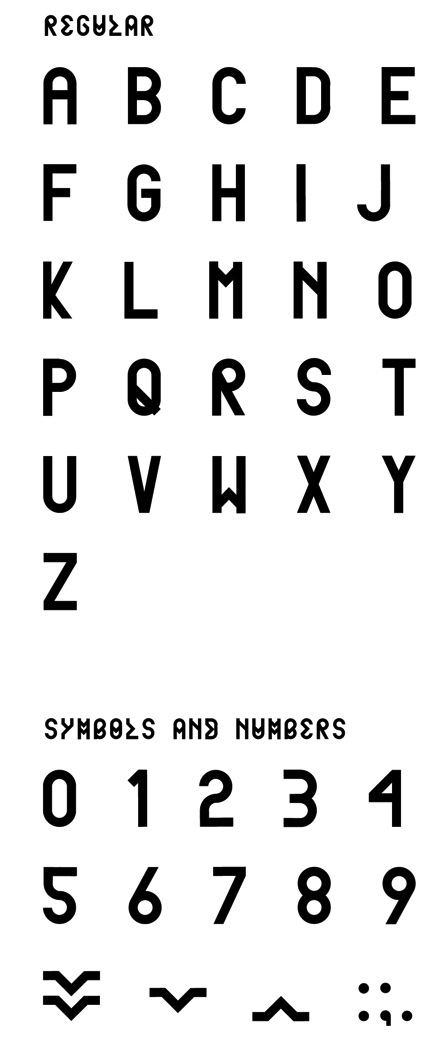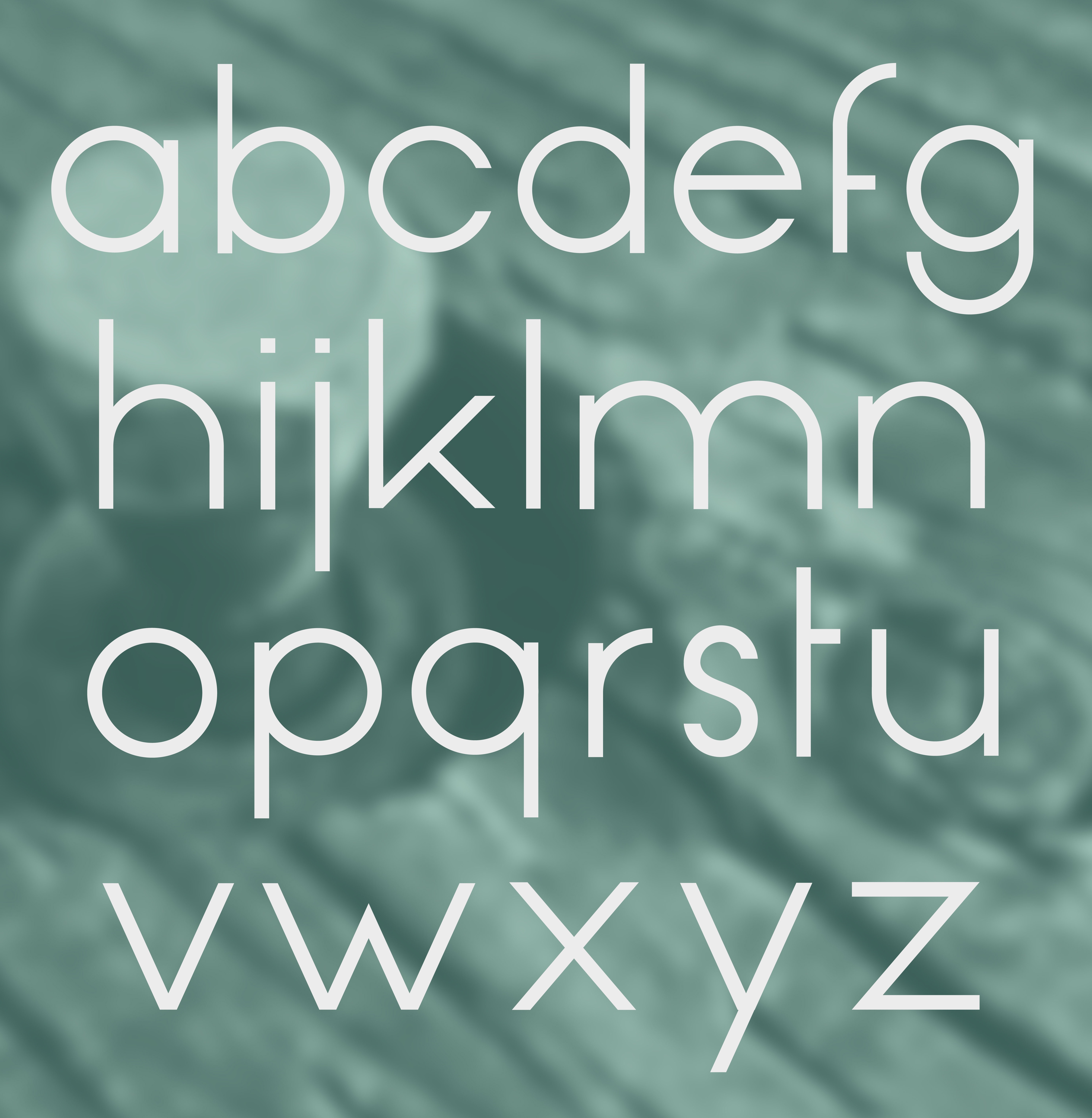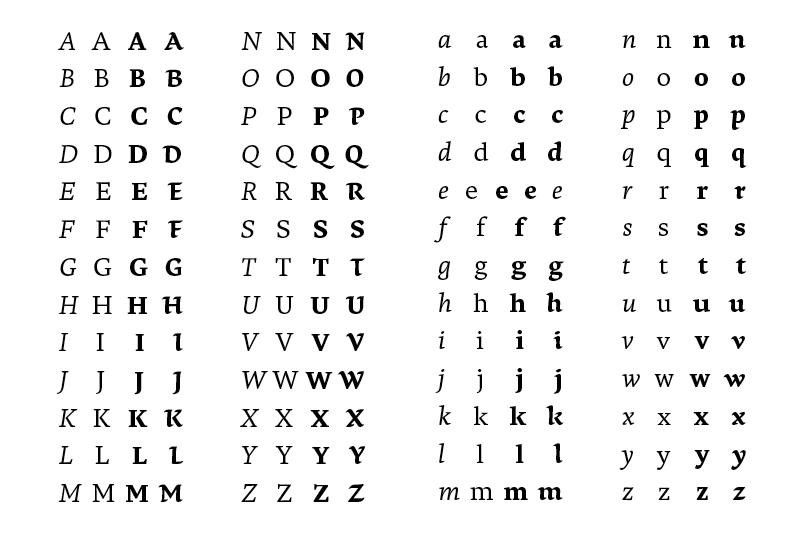
Dutch type design | ||
" <...> is the title of a new graphic design magazine (now based in Den Haag, The Netherlands) intended to fill a gap in current arts publishing. It is not interested in re-promoting established material or creating another 'portfolio' magazine. Instead, it offers inventive critical journalism on a variety of topics related both directly and indirectly to graphic design culture. " Editors: Jurgen Albrecht, Stuart Bailey, Peter Bilak. [Google] [More] ⦿ | |||||||||||||||||||||||||||||||||||||||||||||||||||||||||||||||||||
21 Inch
| 21 Inch is Michael Lugmayr's company in Rotterdam. His fonts were promised in 2003---still waiting. [Google] [More] ⦿ | ||||||||||||||||||||||||||||||||||||||||||||||||||||||||||||||||||
Type design mag started in September 2003 by Underware in The Netherlands. [Google] [More] ⦿ | |||||||||||||||||||||||||||||||||||||||||||||||||||||||||||||||||||
Dutch type historian who collected many art nouveau type specimen, including some rare alphabets drawn by the Rotterdamse Schilderschool. Nadeem Muzaffar's Bibelot (2010, a custom typeface) is based on one of these alphabets. [Google] [More] ⦿ | |||||||||||||||||||||||||||||||||||||||||||||||||||||||||||||||||||
Aad van Dommelen
Student at ArtEZ Institute of the Arts in Arnhem, The Netherlands, b. 1991. He created the optical illusion typeface Lines (2009). [Google] [More] ⦿ | |||||||||||||||||||||||||||||||||||||||||||||||||||||||||||||||||||
Graduate from the Emily Carr Institute (Vancouver) and the KABK in Den Haag in the Type and Media program (2009). Originally from Lethbridge, Alberta, Abi designed a modular type generator. At KABK, he created Arietta, a small family consisting of a simply constructed transitional roman and a bold roman, as well as multiple italic companions. He works as a graphic designer at Commercial Type in New York City. [Google] [More] ⦿ | |||||||||||||||||||||||||||||||||||||||||||||||||||||||||||||||||||
Dutch foundry in Bergen op Zoom. Psychoscout is an initial caps font, originally developed for the Psychoscout record by Flat Earth Society (2006). It was made commercial in 2011. [Google] [MyFonts] [More] ⦿ | |||||||||||||||||||||||||||||||||||||||||||||||||||||||||||||||||||
Acute Studio
Creator of the hairline face Opium (2010) characterized by teardrop terminals. Creator of Paige (2011), developed at the tipoRenesansa 3rd international type design workshop in Ljubljana, Slovenia. This is an attractive and bouncy papercut display face. Marge (2011) is edgy and highly legible even at very small sizes---it was developed at the tipoRenesansa 2nd international type design workshop. Paige Italic (2012) was done at tipoRenesansa 4 and TypeClinic 5 (2012). Her KABK graduation typeface was Editura (2013), a a type family for serious publications, magazines, as well as non-fiction books. At The 8th International Typeclinic in 2014, she continued work on an untitled text typeface. At Die Gestalten, she published Paiper, an extraordinarily balanced and readable 6-style text family with angular flared glyphs that are genetically related to folded paper strips. In 2014, Diana collaborated on the design of HF Stencil with Bold Monday and Studio Thonik. Made for Holland Festival, HF Stencil is based on Glaser Stencil. In 2016, Diana published Equitan Sans and Equitan Slab at Indian Type Foundry, marrying industrial era rustiness with modern functionality. In 2017, she designed Tiny Sans and Albert Samuels Clock Type. Codesigner in 2017 with Samo Acko and Sabina Chipara of the typefaces Passenger Display (2017) and Passenger Serif (released in 2019: a Clarendon). Passenger Display is a high-contrast didone-style font family. It is intended for use in headlines, signs, or posters. Passenger Display is a high-contrast didone-style font family. It is intended for use in headlines, signs, or posters. In 2019, Diana Ovezea and Samo Acko added Passenger Sans, which is characterized by horizontal and vertical terminal strokes and small apertures, and delivers a relaxing read in long texts. With Sabina Chipara, she co-designed the 8-weight simplified sans family Bega at Indian Type Foundry. Diana Ovezea also published the sharp-edged 14-style Matteo in 2017. At Future Fonts, she published Bizzarrini (together with Sabina Chipara) and Silverspoon, ca. 2018. She writes about the wonderful Bizzarrini: Though the idea originates from a Stefan Schlesinger ad sketch for a Paris couture house, we straightened up this typeface and made it seem engineered and sharp. It gets its name from the Bizzarrini Manta, a wedge-shaped concept car designed in 1968 by Giorgetto Giugiaro. Bizzarrini has extremely long wedge serifs. Following Schlesinger's sketch, it features very tall capitals with an out-of proportion middle-line (very big heads on S, B and R). Silverspoon is a contemporary take on Copperplate Gothic. In 2019, she released the connected monoline sans script Akin (done with Sabina Chipara) and the geometric sans family Matteo at Indian Type Foundry. Typefaces from 2020: Silverknife (a tall and skinny version of Silverspoon), Capra (a headline typeface with a bouncy baseline. This project started as a one-day challenge to recreate a piece of lettering on the Glass Menagerie poster designed by David Klein in 1958). At Fontshare, Diana Ovezea and Sabina Chipara released the free calligraphic script Britney. In 2021, Barbara Bigosinska, Rafa Buchner and Diana Ovezea set up Blast Foundry. At Blast Foundry, she published Granblue, a great experimental typeface family for boxing titles. Typefaces from 2022: Duplet (a 14-style geometric sans with a techno vibe; by Diana Ovezea and Rafal Buchner at Indian type Foundry), Duplet Rounded (also 14 styles), Duplet Open (the 14-style companion of Duplet). Home page. Behance link. Future Fonts link. [Google] [MyFonts] [More] ⦿ | ||||||||||||||||||||||||||||||||||||||||||||||||||||||||||||||||||
In 1972, he published the inline art deco typeface Dubbeldik at Mecanorma as a transfer sheet typeface. Dubbeldik was digitally revived in 2020 by Claudio Rocha (Now Type) as Werner. See also Dubbeldik (Mecanorma). [Google] [More] ⦿ | |||||||||||||||||||||||||||||||||||||||||||||||||||||||||||||||||||
Rotterdam-based typefounder, b. 1754, d. Oldenbarneveld, NY, 1828. He published Proeven van Letteren die Gevonden Worden in de van Ouds Beroemde Lettergieterye van Wylen de Heeren Voskens en Clerk, Nu van A. G. Mappa (Rotterdam, 1781). I cite from that link: In 1780, the father of Adam Gerard Mappa bought a large part of the Amsterdam typefounding firm of Voskens&Clerk, and Mappa soon discovered that he had talent for typefounding. He began his own business in Rotterdam where he issued this specimen book, but moved to Delft a few years later. There he become embroiled in the Patriot movement and led a volunteer regiment in the unsuccessful revolution of 1787. He was banished from Delft, spent a few years in France, and in 1789, emigrated to America with his type foundry on the advice of the Ambassador to France Thomas Jefferson. Mappa set up his new business in New York. According to a contemporary letter, and supported by the type in this specimen, his foundry contained not only "the Western, but the Oriental languages at the value of at least [pound sign] 3,500 New York currency." There was not much call for type in exotic languages, and while Isaiah Thomas considered his Dutch and German type "handsome," his "roman were but ordinary." Mappa was not skilled enough to produce the type needed by the new nation, and the foundry was advertised for sale on 1 February 1794. At least some of Mappa's equipments was acquired by Binny&Ronaldson, although their business did not start until 1 November 1796. This specimen book came to them with Mappa's typefounding equipment. Harvard's Houghton Library has a copy of the 1781 publication which contains a handwritten note by Theo L. de Vinne (which I was not allowed to photograph by Harvard's tight-sphinctered librarians). So here is what this letter says: Dirk Voskens was a typefounder of Amsterdam, a coster of types, not a cutter of punches. In 1677 he bought the foundry of Bleau and it was kept by his heirs and successors, (1) Dirk Voskens (2) Weduwe van Dirk Voskens (3) Voskens&fils (4) Voskens + [illegible]. In 1780 the foundry was sued for 8974 francs. P[illegible] were J. Enschedé and Sons, Ploos van Amstel, Preiter, Posthmans, DeBruyn and deGroot. How Mappa acquired possession does not appear. [...] Mappa got into trouble and had to take refuge in New York, where he began business as a type founder. He did not succeed. It is not known which became of the material he had in New York. To this, Bullen added by hand: It was purchased by Binny&Ronaldson. P.M. Kernkamp kindly sent me additional information on Mappa. He points out that Mappa was typefounder in these cities: Rotterdam (1780-1782), Delft (1782-1787) and New York (1789-1792). The 1780 date is also put into question because Mappa's father died in 1779. Mappa was active in a small army of patriots in Holland, and after a defeat in 1787 against Prussia, he was banned from Holland for six years. It may explain his emigration to America in 1789. He lived in New York until 1792, then in Second River, NJ, until 1794 and finally in Oldenbarneveld (Oneida Co., NY). His foundry, then in Albany, NY, was sold in 1803 for 1200 guilders. [Google] [More] ⦿ | |||||||||||||||||||||||||||||||||||||||||||||||||||||||||||||||||||
Adam Katyi
Amsterdam, The Netherlands-based designer of the outlined caps typeface Batavia (2016). It is an all caps typeface inspired by the gilded lettering on an old Amsterdam trading post built in 1920. He also designed the free Hex Font (2016). Home page. Open Font Library link. [Google] [More] ⦿ | |||||||||||||||||||||||||||||||||||||||||||||||||||||||||||||||||||
Romanian designer in Amsterdam who created the free typeface Soul Puddle (2014). Dafont link. [Google] [More] ⦿ | |||||||||||||||||||||||||||||||||||||||||||||||||||||||||||||||||||
His Studio and Flambard typefaces were revived in 2008 by Hans van Maanen as Adams (Canada Type). SoftMaker's versions of Studio (1946, Lettergieterij Amsterdam) are called S850 Station Script (2019). Mecanorma also has a version. Finally, there is a pirated version of Flambard from 1998, called Studio Bold. See also OPTI Bold (by Castcraft). [Google] [MyFonts] [More] ⦿ | |||||||||||||||||||||||||||||||||||||||||||||||||||||||||||||||||||
In 1964 he won, together with Franco Albini and Franca Helg, the Compasso d'Oro, the most prestigious Italian award for design, for the Milan Metro station design. The typeface used for the Milan metro was called Noorda. Noorda is a modification or optimization of Helvetica. Several other subway systems later used his typeface, including the entire New York City subway system in the 1960s, as well as other subway signage projects for Noorda in Sao Paulo, Naples and the regional train network in Lombardy. In 1965, Noorda and fellow Milan-based designer Massimo Vignelli were among the seven founders of Unimark International, an American design firm with offices around the world, including Chicago and Milan. Noorda is best known in the United States for Unimark's work with New York's Metropolitan Transportation Authority. These wayfinding fonts were revived in 2017 by Gabriel Ruiz as New York City Metro Font. Noorda was a professor in graphic design at Societa Umanitaria in Milan, ISIA Urbino and IED in Milan. From 1996 to 2001 he was a professor of visual communication at Politecnico di Milano. Additional link. [Google] [More] ⦿ | |||||||||||||||||||||||||||||||||||||||||||||||||||||||||||||||||||